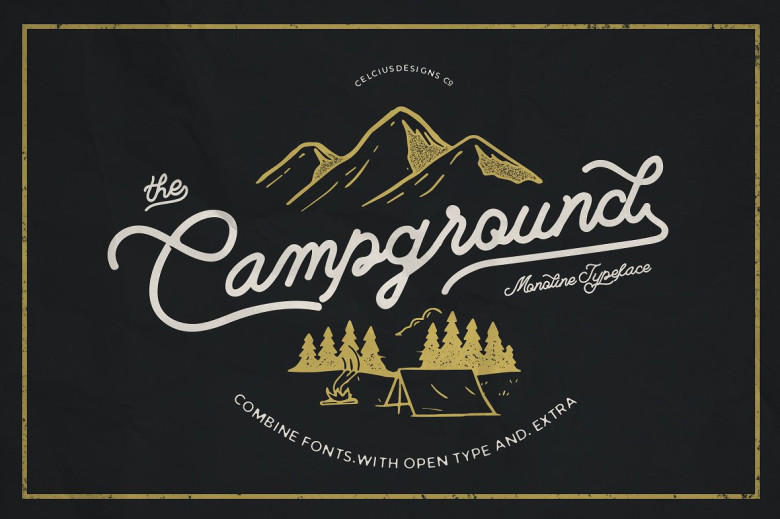
Campground Font
The new display font. Introducing Campground Font. Campground designed by celcius design. These combine font with differente style between script & sans. insipired from nature, adventure and vintage typeface, its very great for logo, clothing brand, vintage looks, wedding, and more. Combine with Bonus badge & illustration